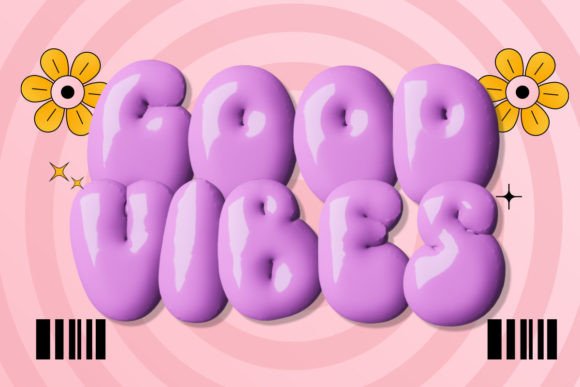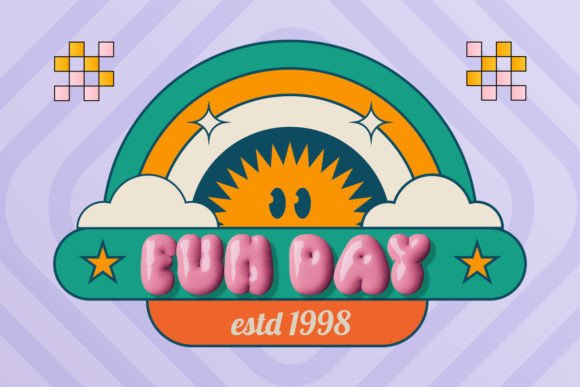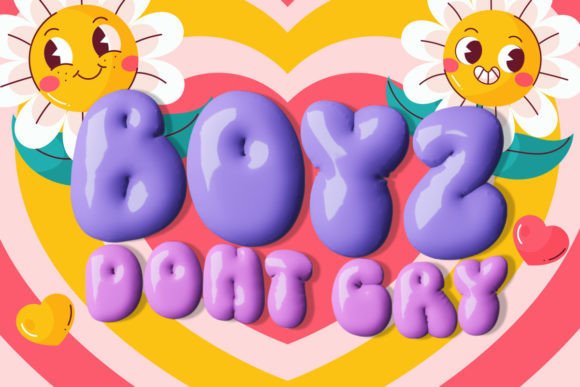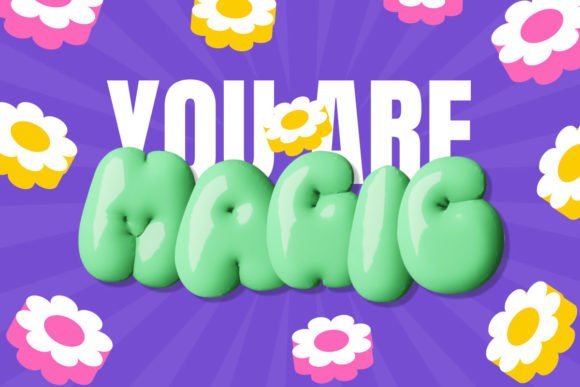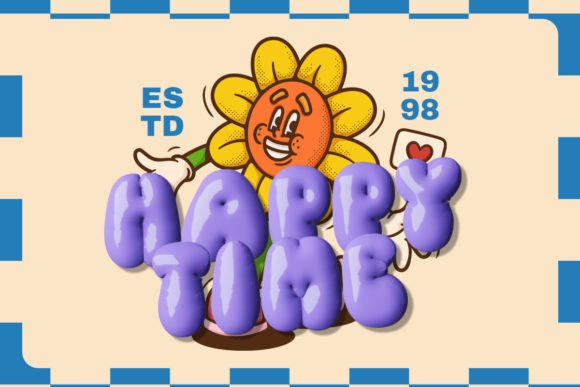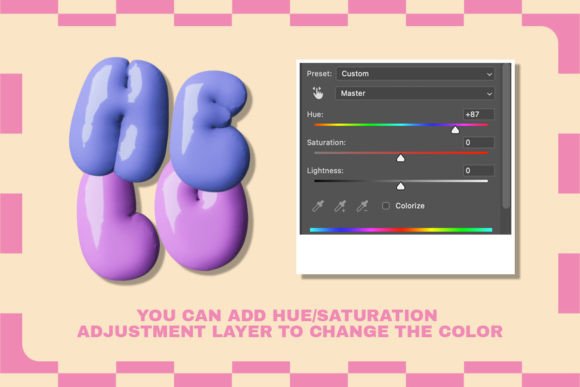
Introduction to Humble Popstar Font
Humble Popstar is a cute and colorful display font.
It embodies playfulness and authenticity and is the perfect choice for any children activity or school project Add this chunky lettered font to your designs and notice how it makes them come alive.
Humble Popstar Font offers exceptional quality and versatility, making it a valuable addition to your design toolkit. Whether you’re creating for personal projects or commercial use, Humble Popstar Font delivers professional results.